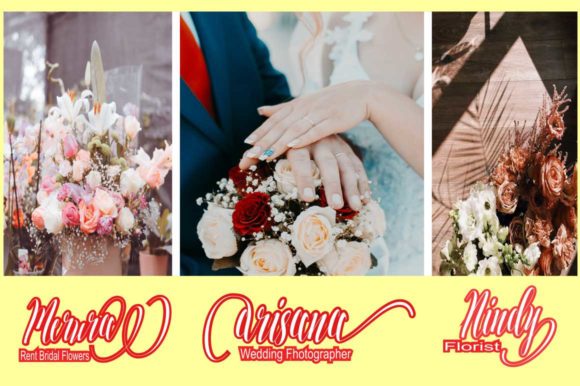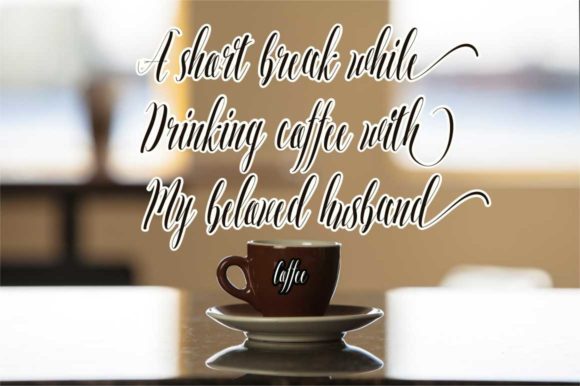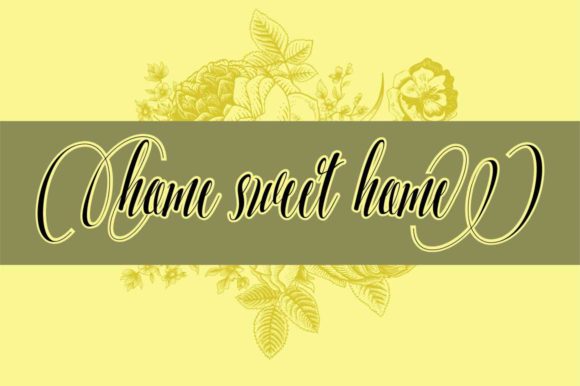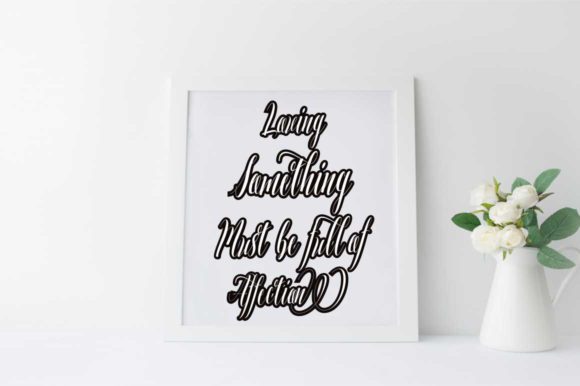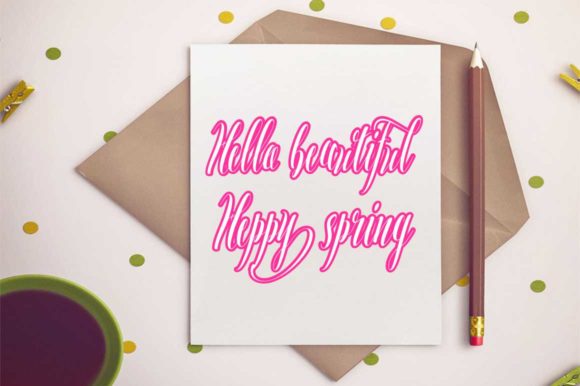
Amelia Diana Font
About Amelia Diana Font
Amelia Diana simplifies elegance into one truly outstanding script font. Use this gorgeous and unique font to bring any DIY project to life!